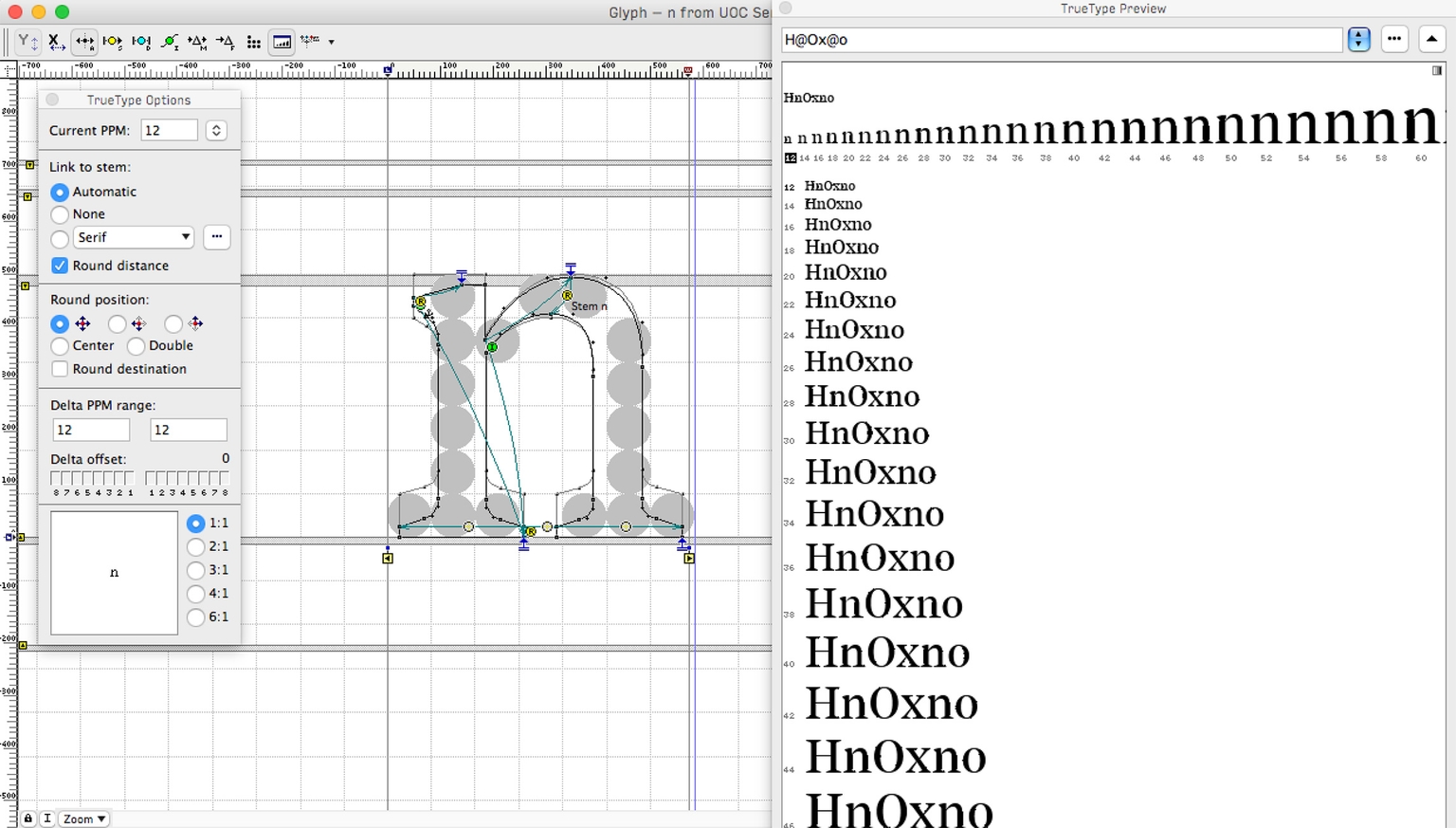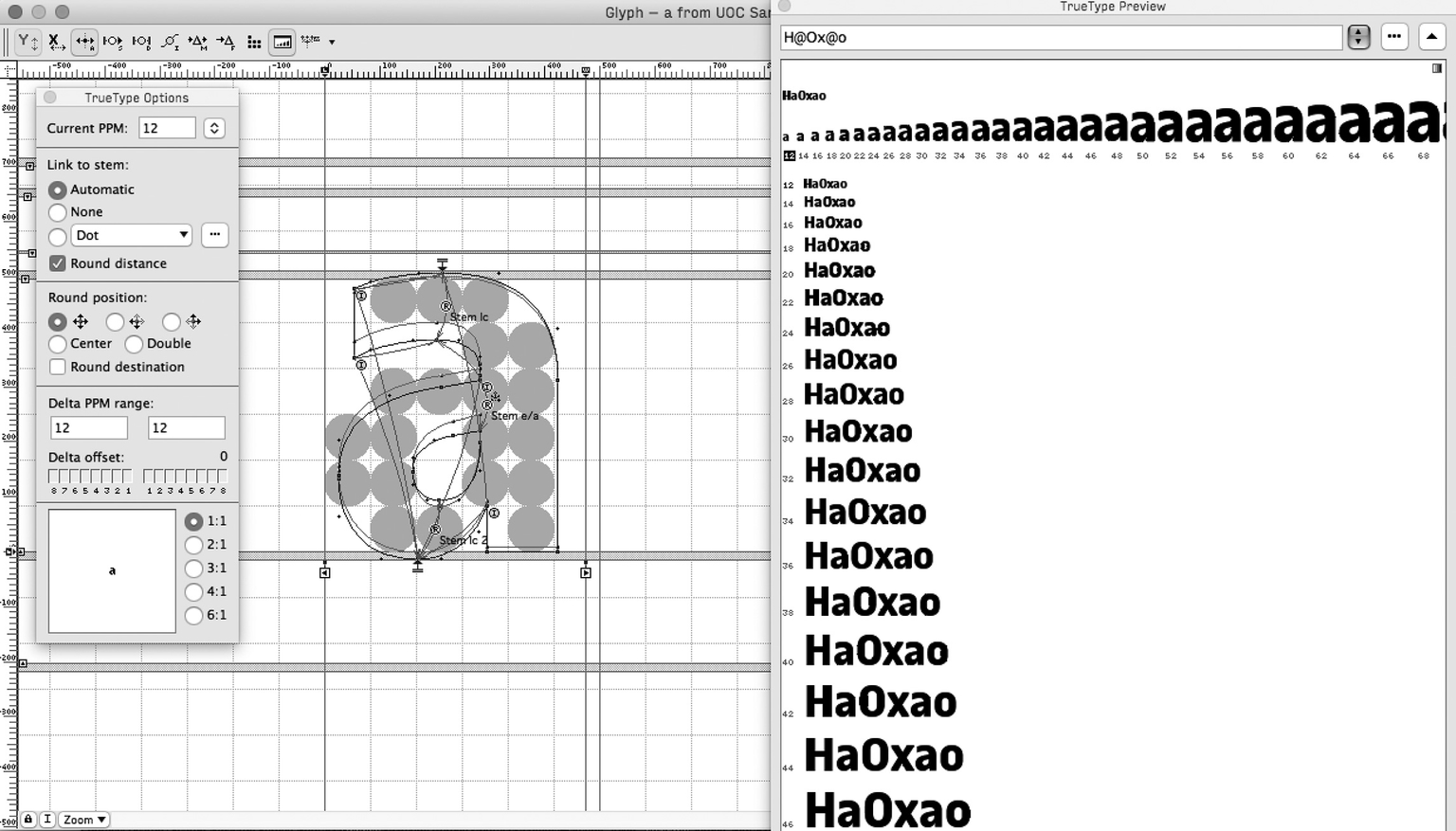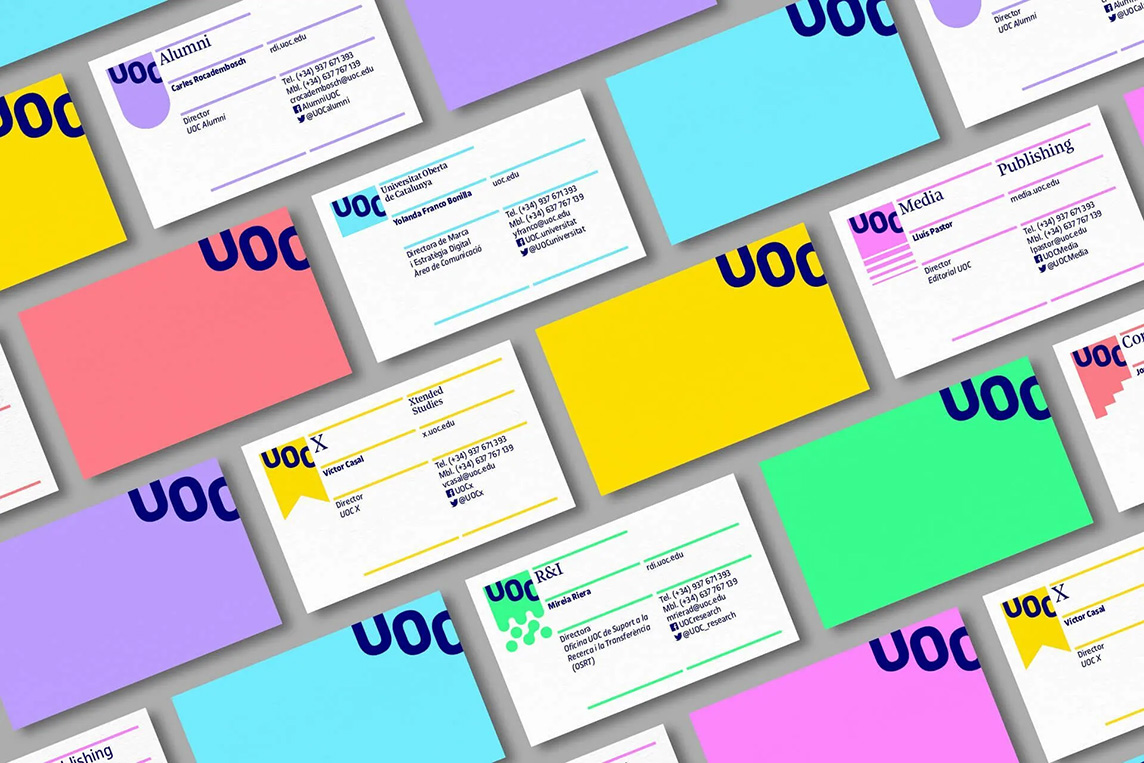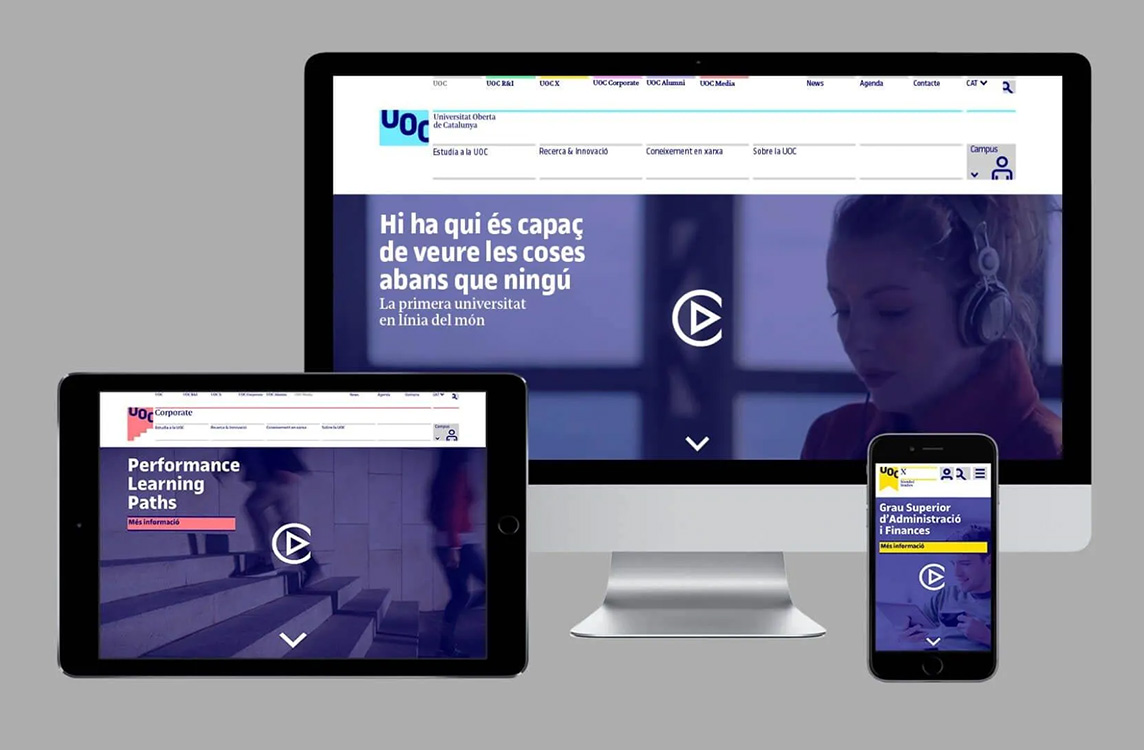
UOC Sans and UOC Serif are the two corporate typographic families of the UOC. They are part of the identity created by Mucho in 2016. UOC Sans is the main family, a sanserif of 4 styles, with which the logo (bold) has been built and from which the rest of the characters have been designed. It has contemporary proportions and a condensed point, it offers a clarity and sharpness that make it very versatile for the application of the new identity. UOC Serif is the complementary font with which the set of sub-brands of the UOC is labeled. It also has this slight condensation which, together with a more accentuated contrast, coexists perfectly with the UOC Sans; its design is consistent. It has two weights, regular and bold, and fresh and elegant italics. These two typefaces are exclusive to the UOC.